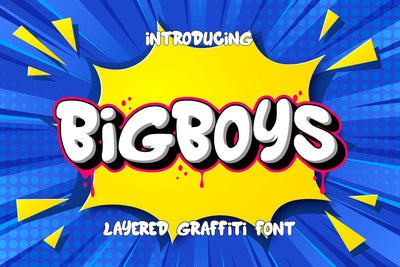
Bigboys - 3d Layered Graffiti Font
Bigboys is a chubby 3D layered graffiti font with a bold and playful street-style vibe. Featuring three dynamic layers—solid, inner shadow, and extrude, this font creates a strong sense of depth and dimension, making it perfect for urban designs, hip-hop posters, streetwear branding, album covers, and graffiti-inspired projects.
- Graffiti Characters looks